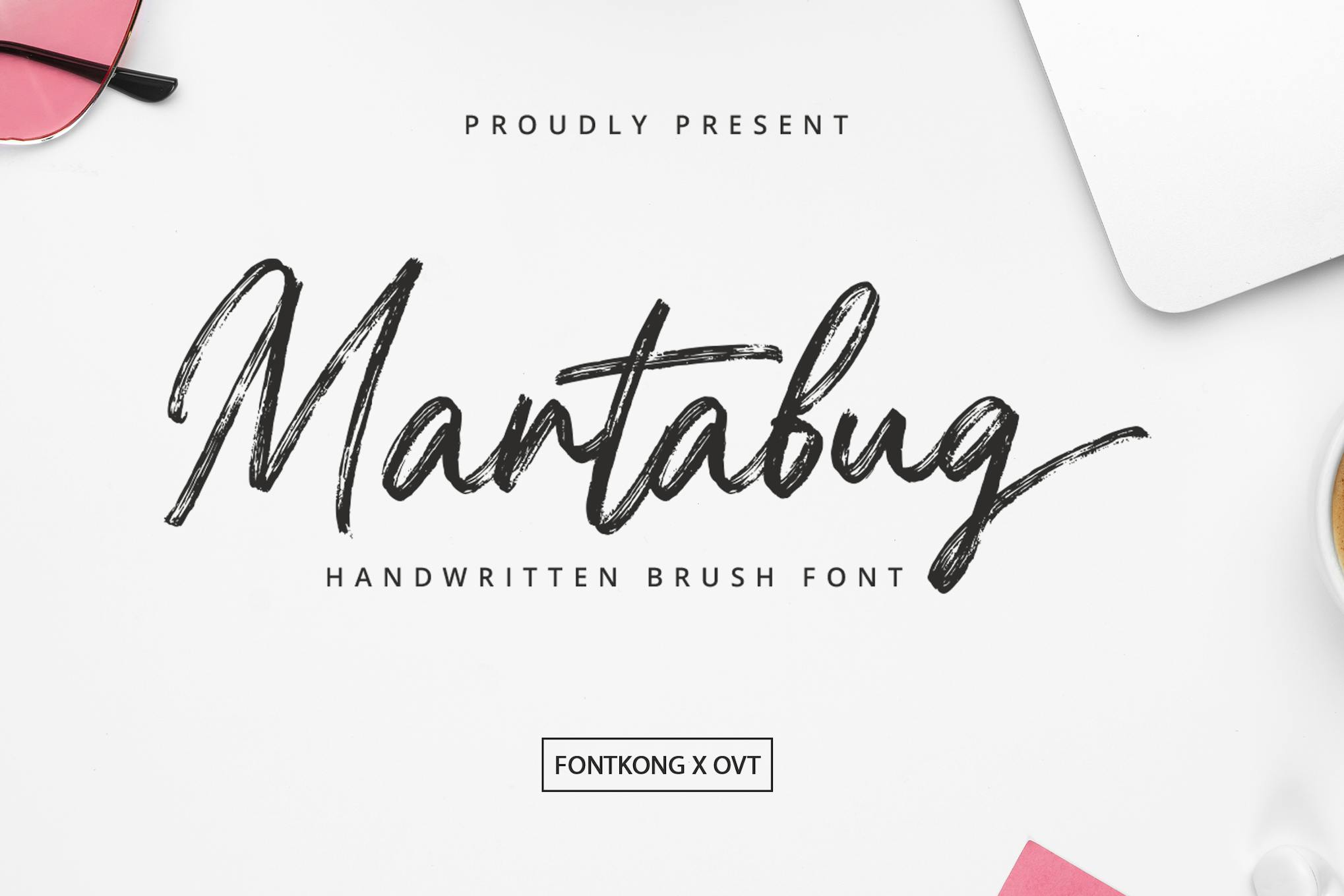
Martabug - Handwritten Brush Font
Martabug - Handwritten Brush Font crawls across quirky indie game interfaces, bug-themed children's book illustrations, nature conservation campaign materials, entomology museum exhibitions, outdoor adventure bug guides, eco-friendly garden center signage, insect photography studio branding, natural science education programs, biodiversity research publications, organic farming materials, nature exploration camp graphics, and environmental awareness marketing where crawling charm and handwritten authenticity create delightfully natural experiences.
This charming typeface generates excitement through its perfect embodiment of natural curiosity and organic discovery that creates typography celebrating the fascinating world of small creatures and environmental exploration. Martabug - Handwritten Brush Font captures the essence of nature observation with its organically flowing brush strokes that suggest field journal entries, nature sketches, and the handwritten notes of passionate naturalists documenting their discoveries. The font's authentic design approach incorporates elements that evoke outdoor exploration, scientific curiosity, and the intimate connection between humans and nature's smallest inhabitants. Its distinctive character reflects the wonder, patience, and environmental awareness that define authentic nature appreciation and ecological education.
The Martabug - Handwritten Brush Font family includes multiple natural variations such as Regular, Bold, Light, Organic, and Field versions, each maintaining the font's characteristic natural authenticity while offering different levels of environmental impact. The collection features handwritten brush textures, nature-inspired effects, and organic styling that enhance its ecological aesthetic. Additional elements include bug symbols, leaf ornaments, nature decorative borders, and environmental flourishes that reinforce the font's connection to natural discovery and ecological awareness.
Environmental educators and nature-focused organizations consistently select Martabug - Handwritten Brush Font Free Download for projects requiring typography that communicates environmental curiosity and natural authenticity. This remarkable typeface excels in applications where establishing ecological credibility and conveying nature appreciation are essential for environmental education and conservation success. The font's natural qualities make it particularly effective for nature centers, environmental organizations, and outdoor education programs targeting audiences who appreciate biodiversity and ecological discovery.
Whether you're designing environmental education materials, creating nature conservation campaigns, developing outdoor exploration programs, or crafting ecological awareness communications, Martabug - Handwritten Brush Font delivers unmatched natural authenticity. Its ability to convey environmental curiosity, natural wonder, and ecological appreciation makes it invaluable for nature educators seeking typography that genuinely celebrates the fascinating world of environmental discovery. The font's organic presence ensures your designs will communicate the authentic curiosity and environmental awareness that define exceptional nature communications and ecological education experiences.